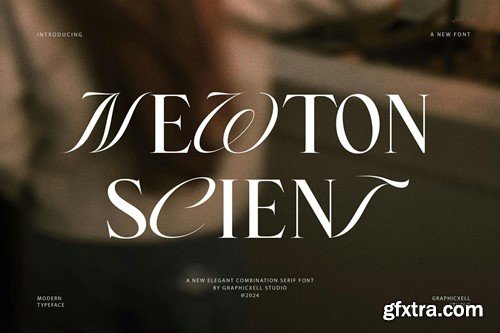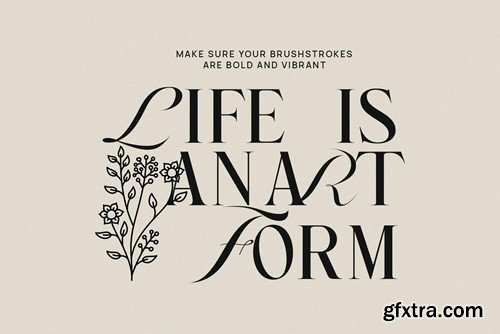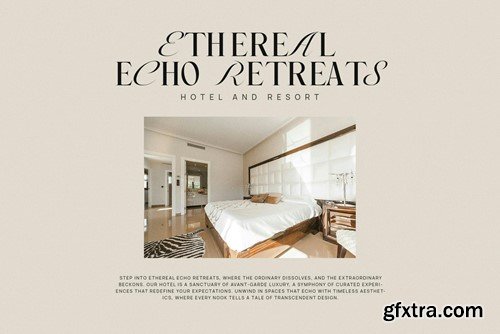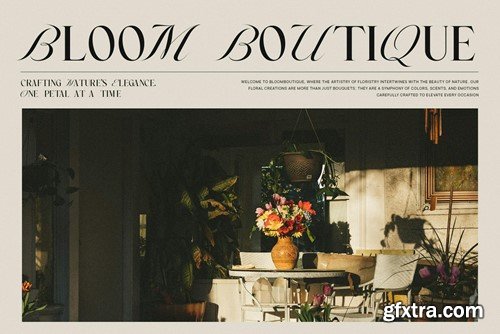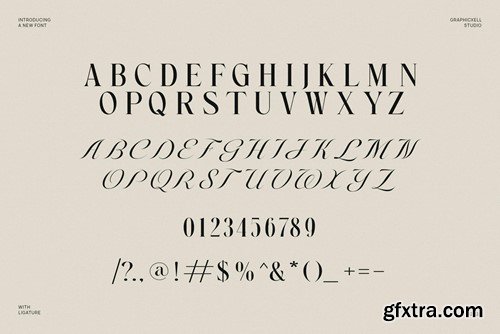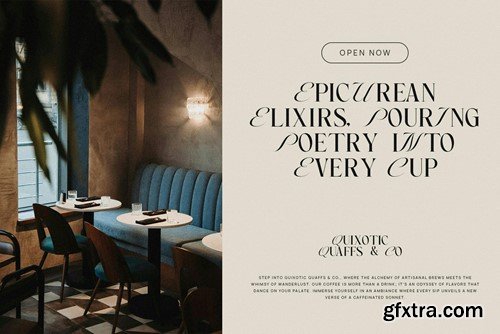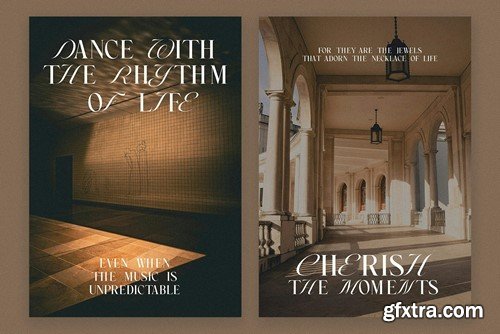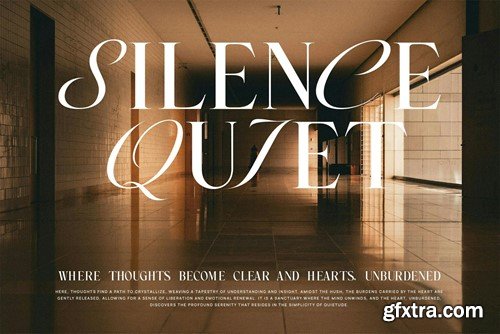
Newton Scient Calligraphy Serif Font Font Typeface 3S94SV6
Newton Scient Calligraphy Serif Font Font Typeface
is a unique and very elegant font for branding and logo designs Elegant serif typeface combined with a classy and modern style. This type of font is very suitable for your various needs such as branding projects, logos, wedding designs, social media posts, advertisements, product packaging, product designs, labels, photography, watermarks, invitations, stationery, and any project, created with high level of readability. you will not be disappointed if you buy this font!!